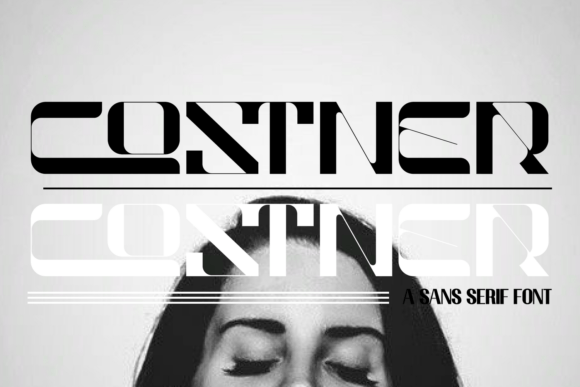
Dive into the realm of typography with Costner, the modern and stylish sans-serif font that commands attention with its air of confidence and refinement. Crafted with precision, this font boasts clean lines and a minimalistic style, making it the epitome of versatility. Whether you're a creative professional designing captivating logos, crafting elegant invitations, or composing impactful marketing materials, Costner is your perfect partner.
Its crisp and legible letterforms bring a touch of sophistication to any project, enhancing readability and ensuring your message stands out from the crowd. With Costner, you'll elevate your designs to a whole new level of style and elegance. It's the perfect choice for branding, editorial design, web design, and more.
But Costner is more than just a font; it's an experience. Its contemporary and chic look will captivate your audience, leaving a lasting impression that sets your work apart. And with its PUA encoding, unleashing the full potential of Costner is a breeze, granting you seamless access to all glyphs and swashes.
Embrace Costner today and embark on a typographic journey that will redefine your creative possibilities. Let its allure and sophistication ignite your imagination and transform your projects into masterpieces.